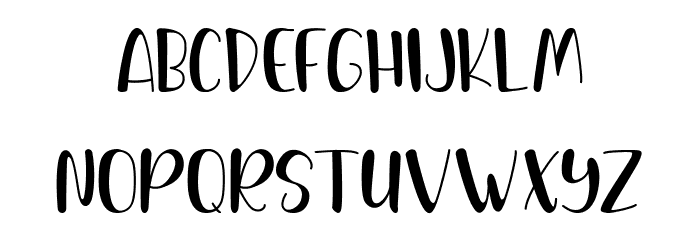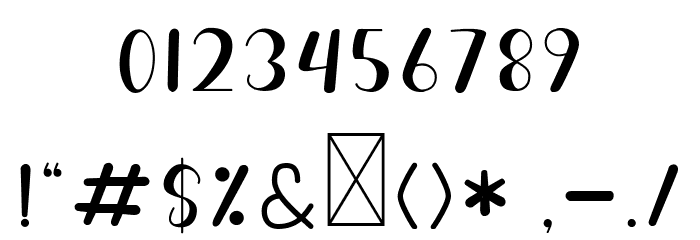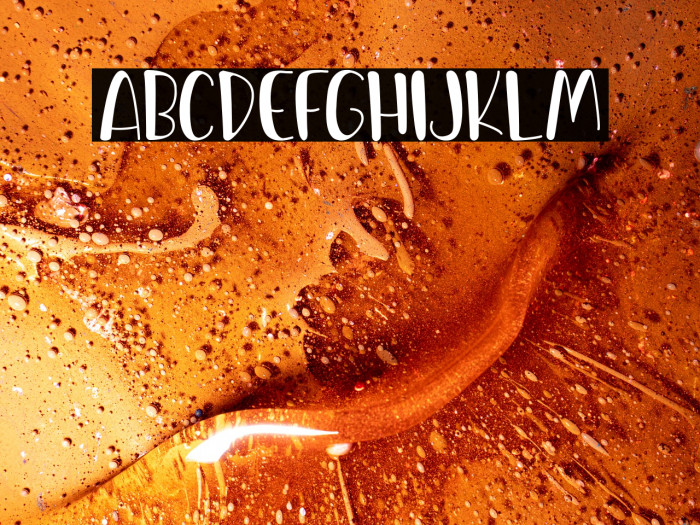
Spicy Hamburger Font
This font features a playful and modern handwritten style, characterized by its smooth curves and slightly irregular strokes that give it a lively and informal appearance. The uppercase and lowercase letters maintain a consistent flow, with rounded edges and a slight slant that adds to its casual charm. The numerals are bold and easily readable, complementing the overall aesthetic. Special characters are uniquely styled, maintaining the font's whimsical nature. This font is versatile, suitable for projects that require a personal touch or a creative flair.
A playful, modern handwritten font with smooth curves and a lively appearance.
- Proposed Projects: Ideal for greeting cards, invitations, personal branding, and creative posters.
- Use Case: Logos, Headlines, Creative projects